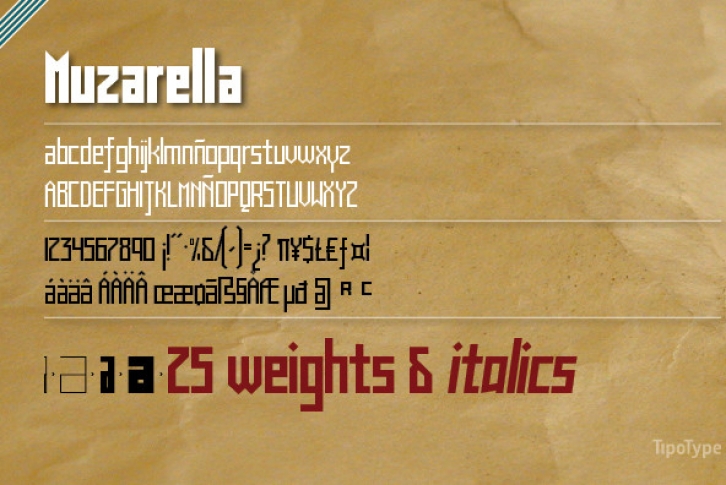
Muzarela is a family with 25 weight variants and their respective italics. It is ideal for posters or designs requiring high impact. The combination of different weights can generate interesting and versatile textures.